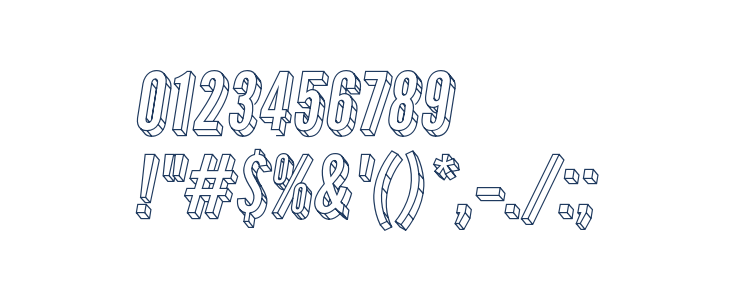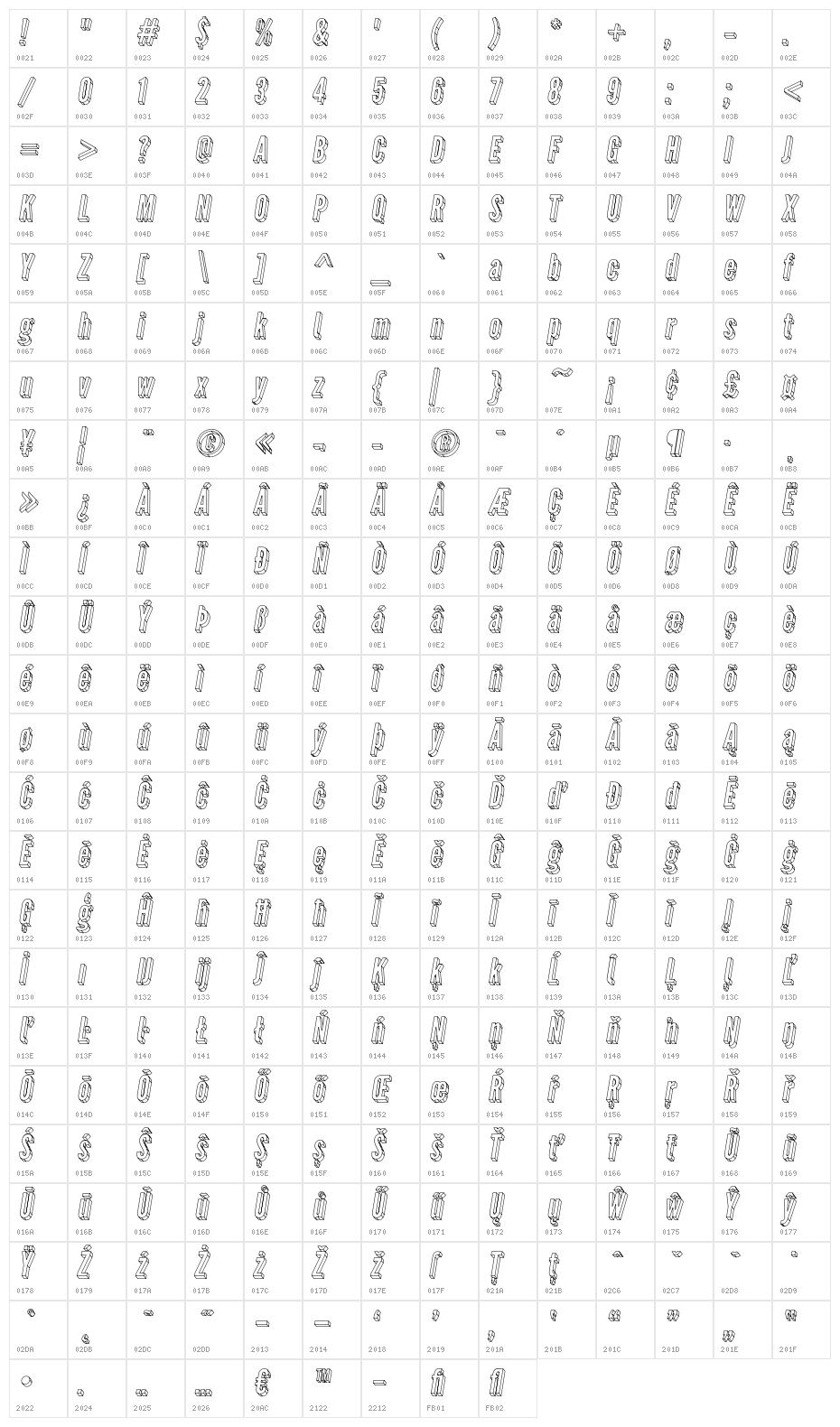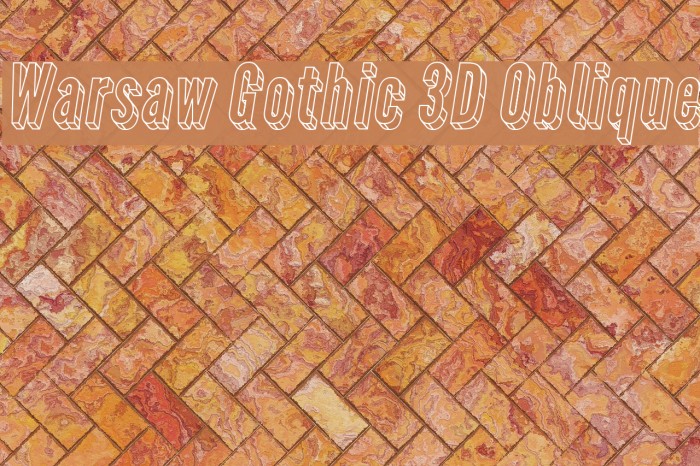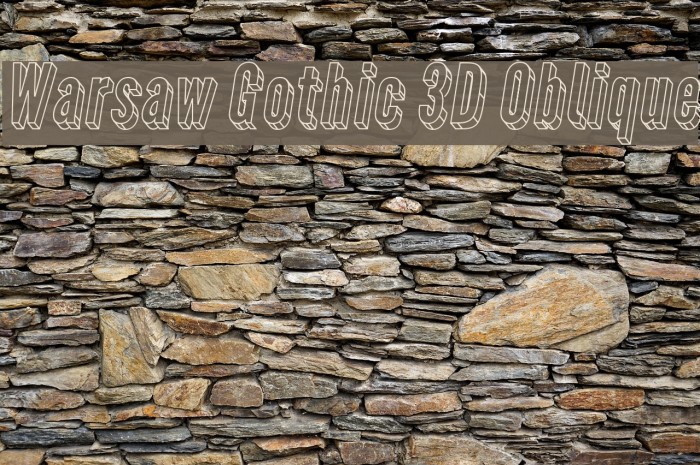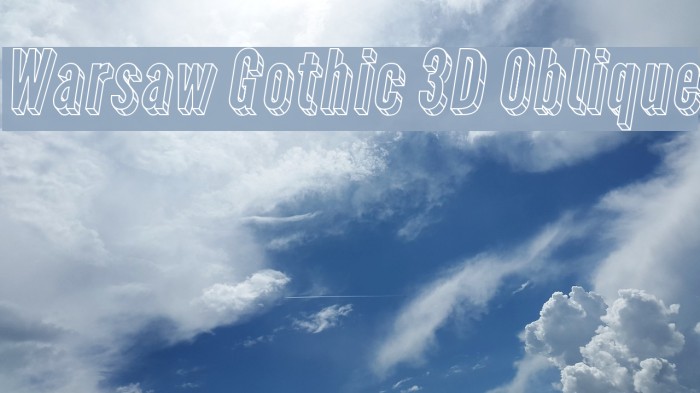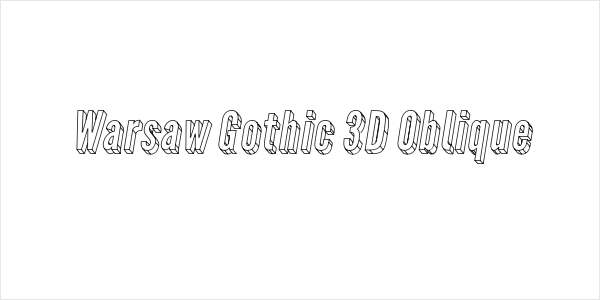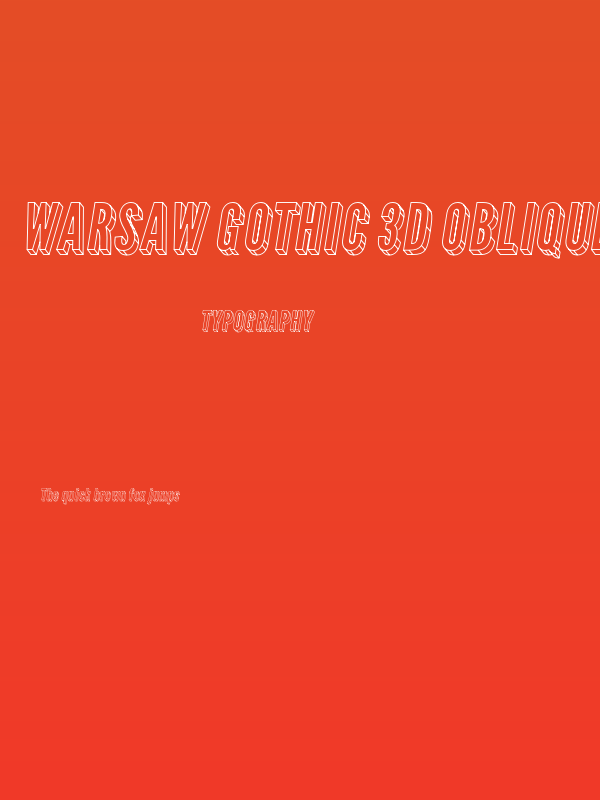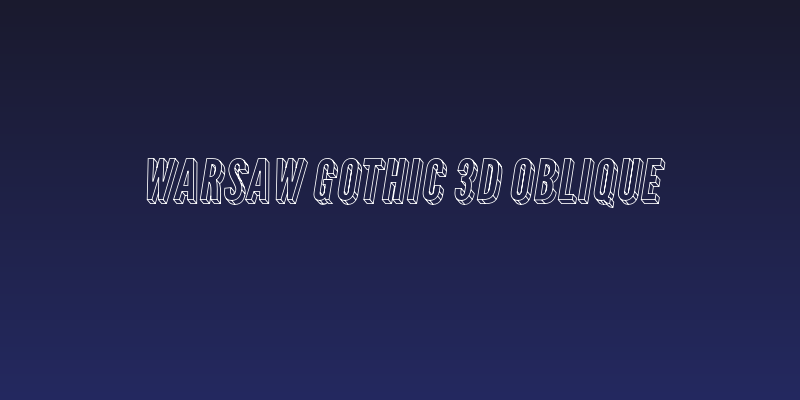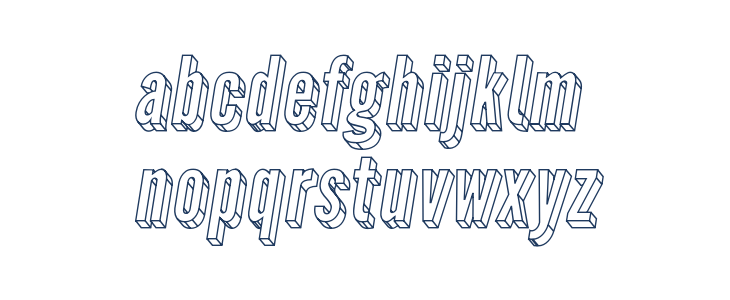
Warsaw Gothic 3D Oblique Font
Warsaw Gothic 3D Oblique Description
This font features a bold, three-dimensional design with an oblique slant, giving it a dynamic and modern appearance. The characters are outlined, creating a striking visual effect that emphasizes depth and dimension. The uppercase and lowercase letters maintain a consistent style, with clean lines and sharp angles. The numerals and special characters are designed to match the overall aesthetic, ensuring a cohesive look across all text. This font's unique 3D effect makes it stand out, ideal for projects that require a bold and eye-catching typeface.